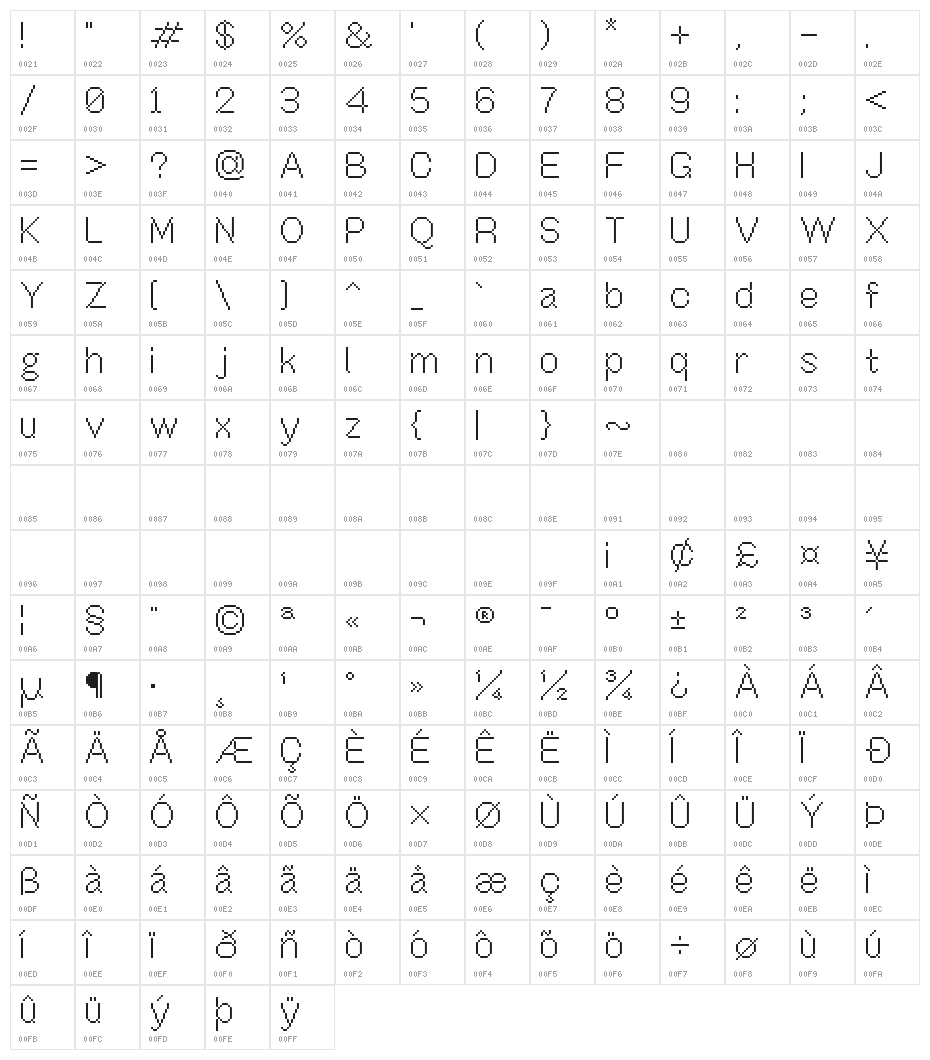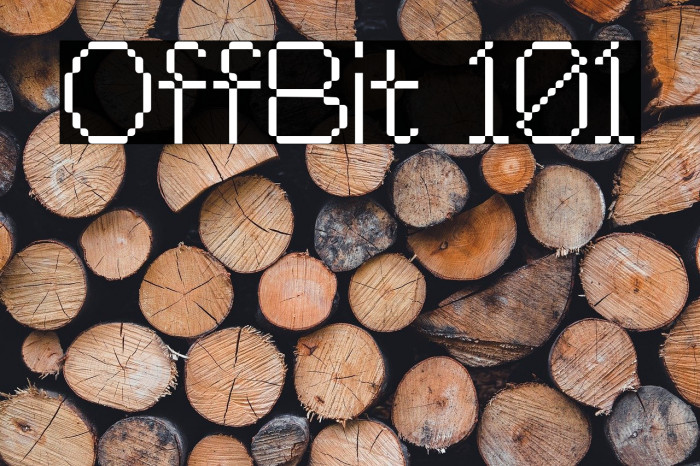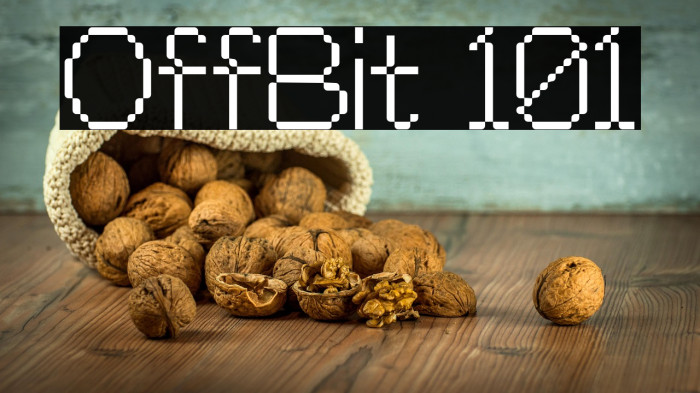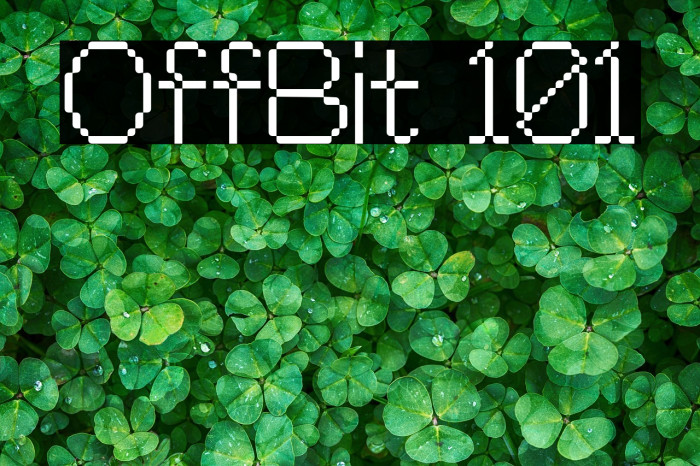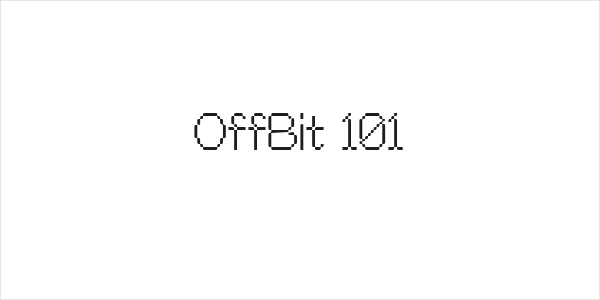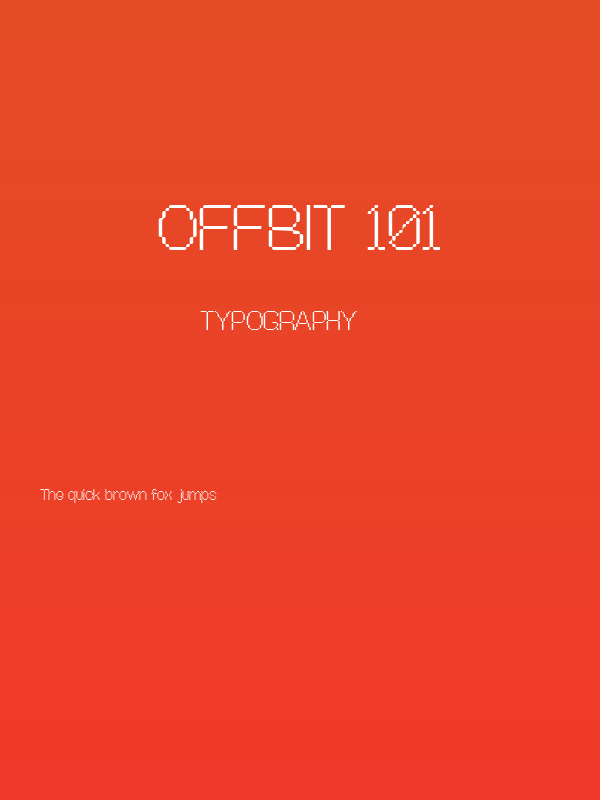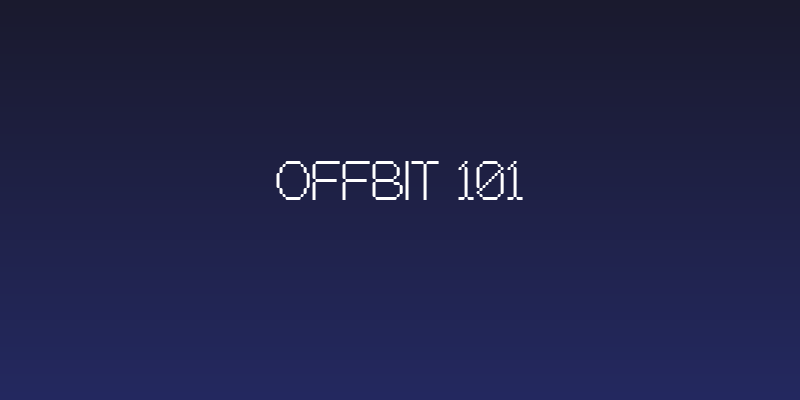
OffBit 101 Font
OffBit 101 Description
This font features a unique, pixelated design that resembles digital or electronic displays. Each character is composed of small, square dots, creating a retro, tech-inspired aesthetic. The uppercase and lowercase letters maintain a consistent height, with clean, geometric lines that enhance readability. Numbers and special characters follow the same pixelated style, ensuring a cohesive look across all glyphs. This font is ideal for projects that require a digital or futuristic theme, offering a distinct and modern appearance.
| Use Case | Logos, Headlines, Digital displays |
| Proposed Projects | Ideal for digital displays, tech-themed branding, video game interfaces, and retro-futuristic designs. |